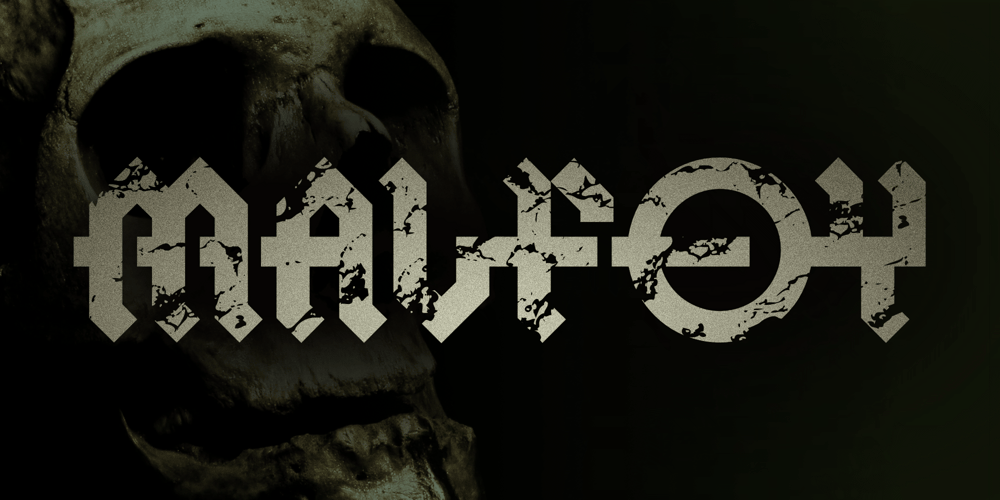
Malfoy Font Family was designed by Michael Kovacevich and published by MKGD. Malfoy contains 1 styles and family package options. Malfoy follows in the footsteps of Blackletter and Old English typefaces, with a few stylistic exceptions.It’s overall structure, that mostly resembles square nibbed calligraphic letters, produces a dignified, formal, and ancient appearance. However, the addition of the occasional circular glyphs, add a softer, humanistic feel.It also contains cross strokes, which both connect and separate. When coupled with a crumbling weathered finish, Malfoy possesses a timelessness that is not just dark, but romantic and wistful as well.In the end, Malfoy is equally at home embellishing messaging, whether it be merry or menacing.Malfoy has a glyph count of 388 and supports the following languages;Afrikaans • Albanian • Asu • Basque • Bemba • Bena • Bosnian • Catalan • Cebuano • Chiga • Colognian • Cornish • Corsican • Croatian • Czech • Danish • Embu • English • Esperanto • Estonian • Faroese • Filipino • Finnish • French • Friulian • Galician • German • Gusii • Hungarian • Icelandic • Ido • Indonesian • Interlingua • Interlingue • Irish • Italian • Javanese • Jju • Kabuverdianu • Kalaallisut • Kalenjin • Kamba • Kikuyu • Kinyarwanda • Kurdish • Latvian • Ligurian • Lithuanian • Lojban • Lombard • Low German • Lower Sorbian • Luo • Luxembourgish • Luyia • Machame • Makhuwa • Makhuwa-Meetto • Makonde • Malagasy • Malay • Maltese • Manx • Māori • Mauritian Creole • Meru • North Ndebele • Northern Sotho • Norwegian Bokmål • Norwegian Nynorsk • Nyanja • Nyankole • Occitan • Oromo • Polish • Portuguese • Rejang • Romanian • Romansh • Rombo • Rundi • Rwa • Samburu • Sango • Sangu • Sardinian • Scottish Gaelic • Sena • Shambala • Shona • Silesian • Slovak • Slovenian • Soga • Somali • South Ndebele • Southern Sotho • Spanish • Sundanese • Swahili • Swati • Swedish • Swiss German • Taita • Taroko • Teso • Tsonga • Tswana • Turkmen • Upper Sorbian • Vunjo • Walloon • Walser • Wolastoqey • Xhosa • Zhuang • Zulu